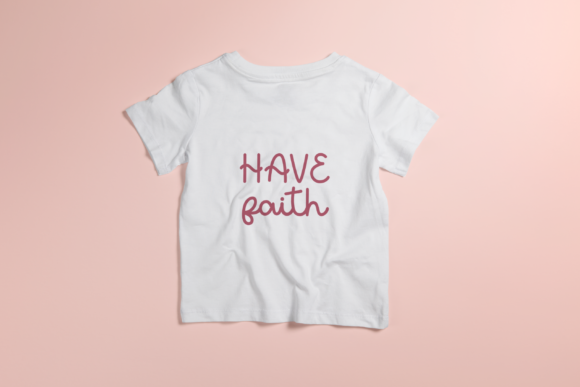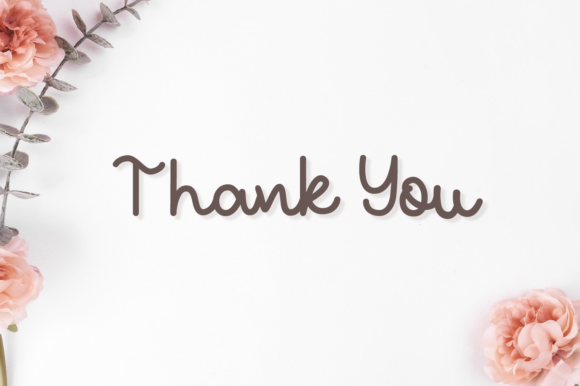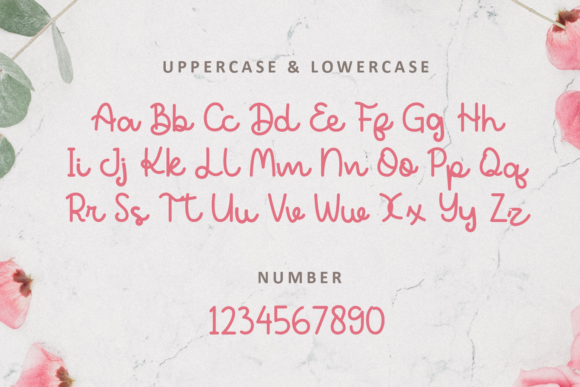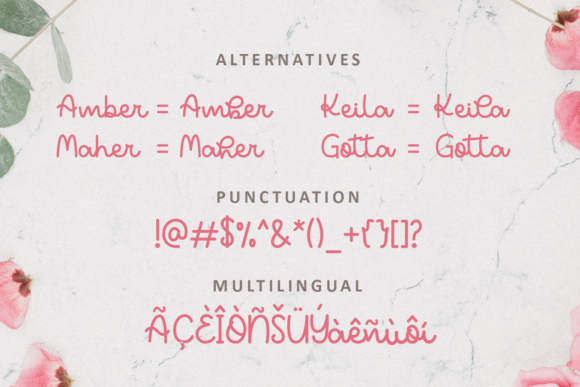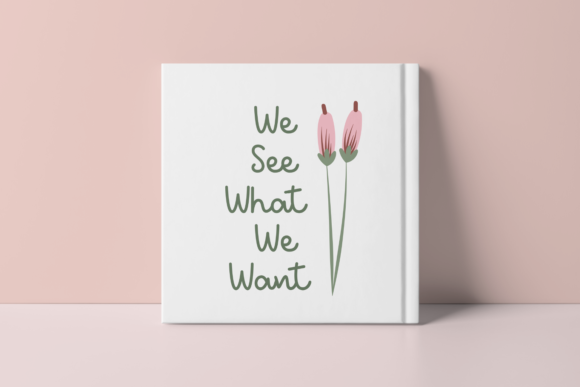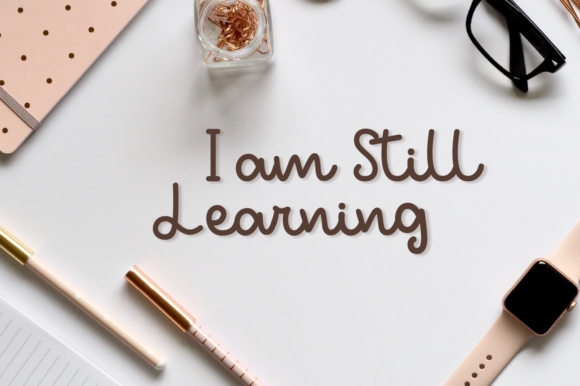
Introducing Have Faith Font: Elevate Your Designs with Elegance and Sophistication
In the world of design, typography plays a crucial role in conveying the tone and aesthetic of a project. For those seeking a stylish and elegant script font, look no further than Have Faith Font. This beautiful font is perfect for adding a customized touch to various designs, including wedding invitations, thank you cards, quotes, greeting cards, logos, business cards, and more.
The Beauty of Have Faith Font
Have Faith Font is a stunning script font that exudes elegance and sophistication. Its flowing lines and curves create a sense of luxury, making it ideal for designs that require a high-end feel. The font’s versatility allows it to be used in a wide range of applications, from formal events to everyday designs.
Wedding designers and event planners, rejoice! Have Faith Font is an excellent choice for creating beautiful wedding invitations, save-the-date cards, and other event-related materials. Its elegant script style adds a touch of romance and sophistication, setting the tone for a memorable and special day.
Ideal for Crafters and Small Business Owners
For crafters and small business owners, Have Faith Font offers a unique opportunity to elevate their brand and products. Use it to create eye-catching business cards, product labels, or packaging that stands out from the competition. The font’s customizable nature allows you to tailor your designs to your specific needs and brand identity.
Key Features of Have Faith Font
- Elegant script style: Have Faith Font boasts a beautiful, flowing script style that adds a touch of sophistication to any design.
- Versatile: Suitable for a wide range of applications, including wedding designs, event materials, business cards, and more.
- Customizable: Allows designers to tailor their designs to their specific needs and brand identity.
- High-quality: Professionally crafted to ensure clarity and legibility.
Tips for Using Have Faith Font
To get the most out of Have Faith Font, consider the following tips:
- Pair with complementary fonts: Combine Have Faith Font with complementary fonts to create visual interest and hierarchy.
- Experiment with colors: Try different color schemes to find the perfect match for your design.
- Pay attention to spacing: Ensure adequate spacing to maintain clarity and legibility.
| Font Name | Have Faith Font |
| Author | Suntype |
Have Faith Font is a stunning script font that offers designers and crafters a unique opportunity to elevate their designs with elegance and sophistication. Its versatility, customizable nature, and high-quality craftsmanship make it an excellent choice for a wide range of applications. Whether you’re designing wedding invitations, business cards, or products, Have Faith Font is sure to impress.